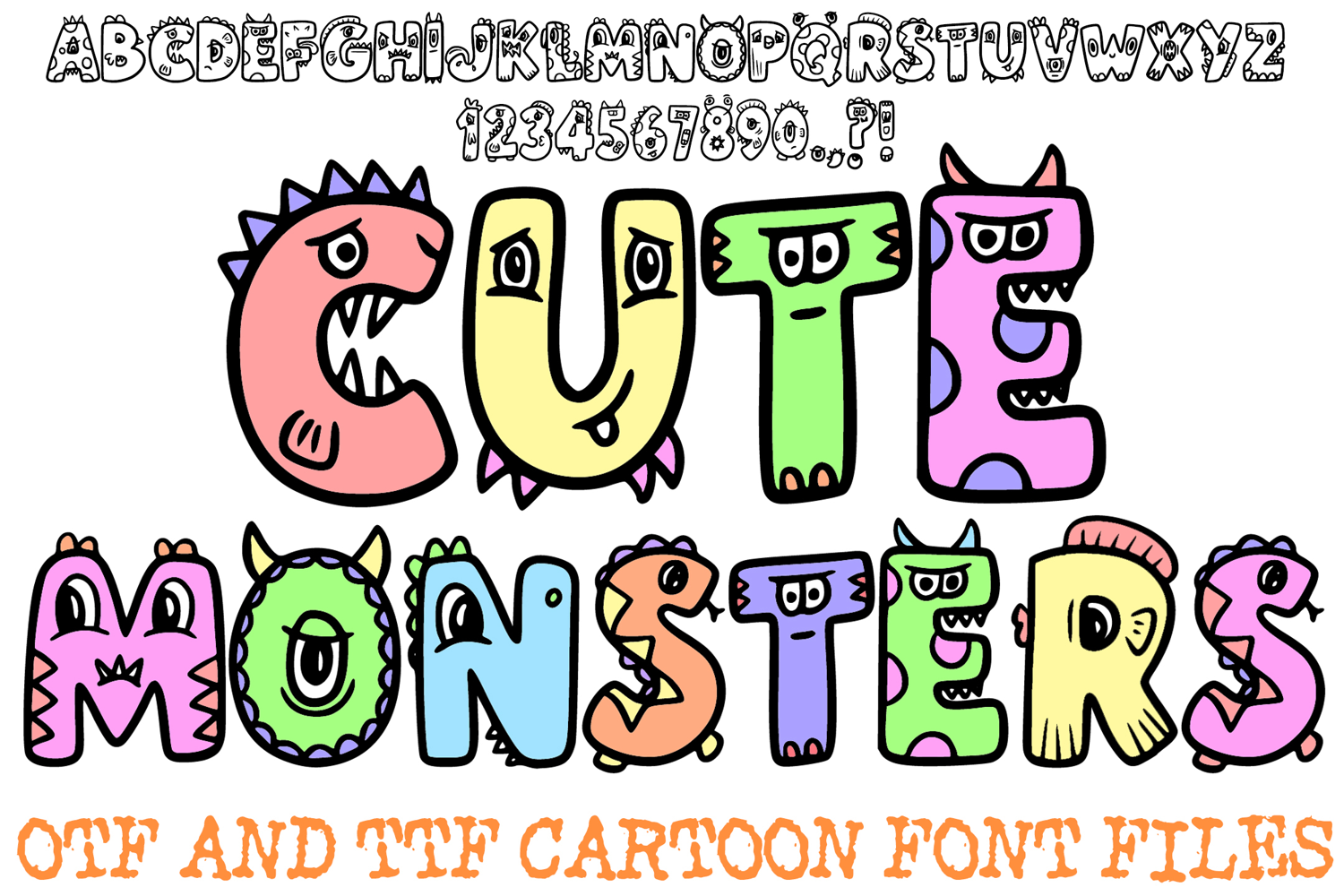
Cute Monsters Cartoon Font Letters Typography Hand Drawn ABC
Add a burst of silly energy to your designs with the Cute Monsters Cartoon Font! This hand-drawn display typeface is packed with personality, turning every letter and number into a friendly, googly-eyed creature. With a mix of horns, spots, scales, and goofy grins, this font is designed to make your projects stand out with a "creepy-cute" aesthetic.
The bold, doodled outlines make this font a dream for crafters and DIY enthusiasts. It’s perfect for creating custom birthday decor, fun educational worksheets, or whimsical apparel. Each character is unique, ensuring that your text looks like a lively parade of monsters rather than just a standard font.
Artisanal Hand-Drawn Feel: The organic, "bumpy" lines give your work an authentic, approachable look.